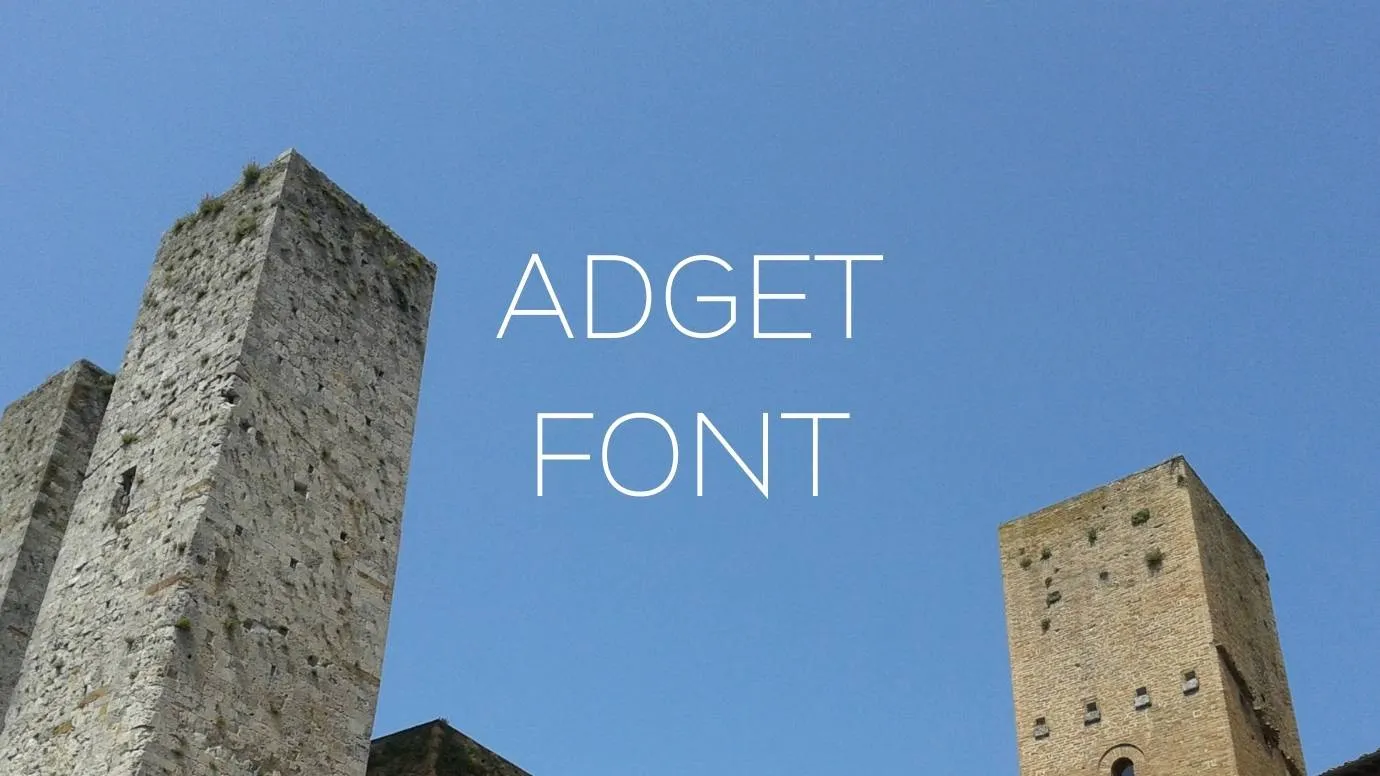
Adget Sans Font Free Download
Adget Sans Font Family is a contemporary and robust sans-serif font featuring 11 variations such as Regular, Bold, Extra Bold, Thin, Light, Extra Light, Heavy, Medium, Book, and Black. Created by Adam Greasley, this font was launched in 2014 by Wearecolt.
Adget Sans Font Family